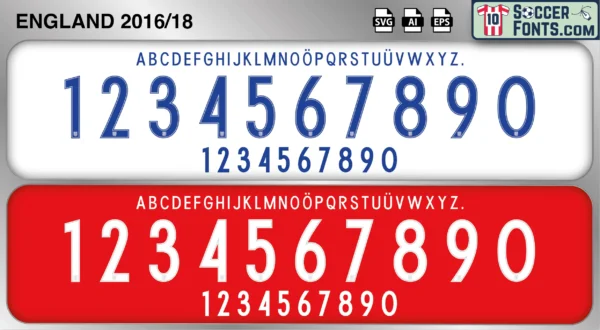
England 2016-18 Font
The England 2016-18 font is an editable soccer jersey lettering design in vector format inspired by the England kit style used during the 2016-18 football seasons. This football font artwork is prepared for football shirt recreations, custom jersey projects, football kit mockups and sports graphic design workflows.
The 2016-18 period marked the beginning of a new era for the England national team. Following UEFA EURO 2016, England turned toward a younger generation of players capable of reshaping the future of the national side. Under Gareth Southgate, footballers such as Harry Kane, Raheem Sterling, Jordan Henderson, Kyle Walker, John Stones and Dele Alli became central figures in a squad built around energy, flexibility and long-term development. The team entered the 2018 FIFA World Cup in Russia with relatively modest expectations but quickly became one of the tournament’s most compelling stories.
The England 2016-18 font became associated with the emergence of a generation that helped reconnect supporters with the national team. England shirts from this era remain highly popular because of their connection with Harry Kane’s Golden Boot-winning World Cup campaign and England’s run to the semi-finals in Russia. The England 2016-18 font reflects a period of renewal and optimism, capturing the beginning of a project that would later produce England’s strongest sequence of tournament performances in decades.